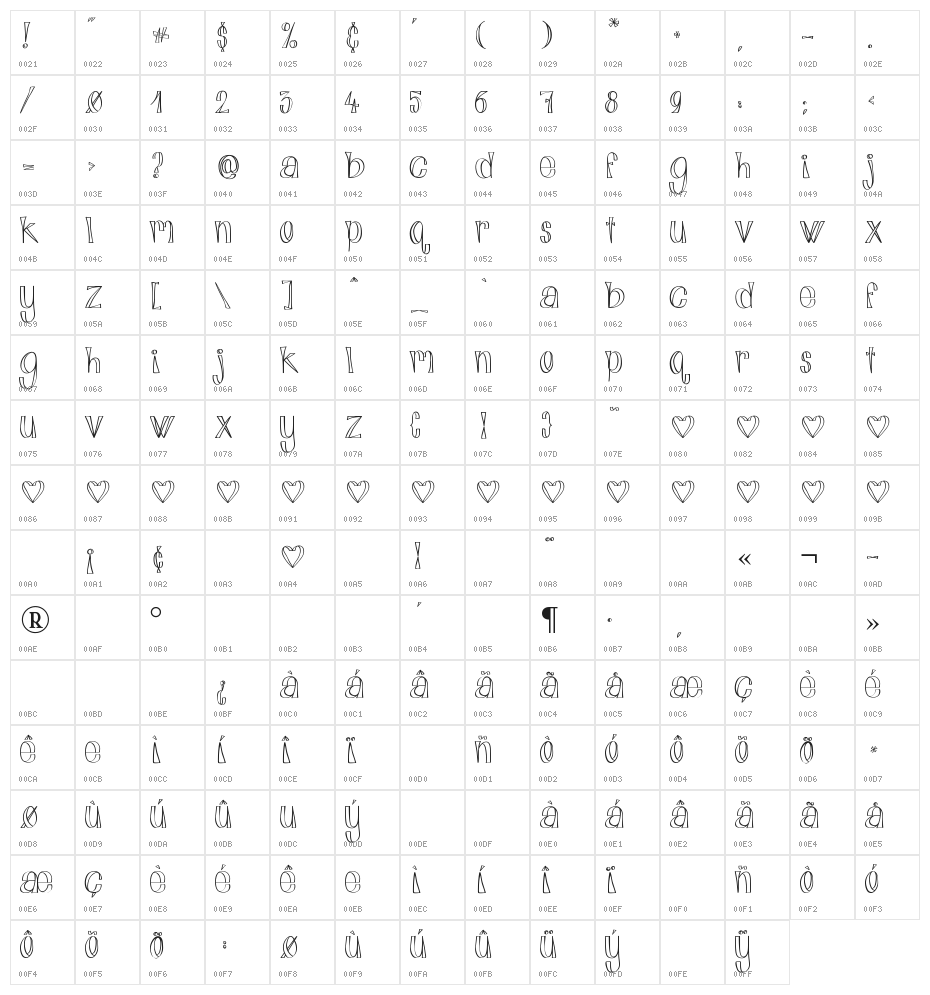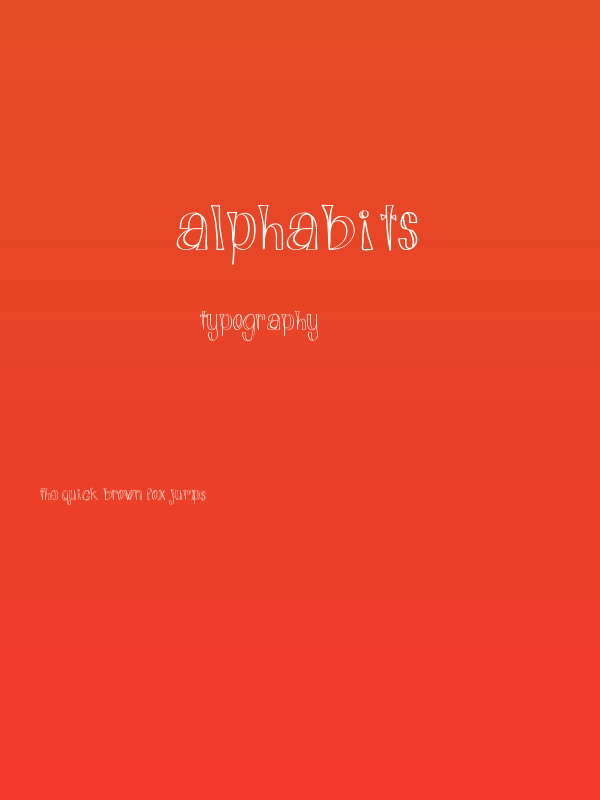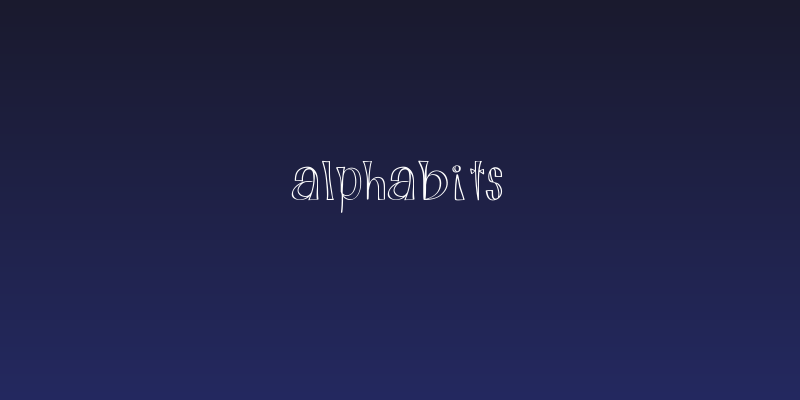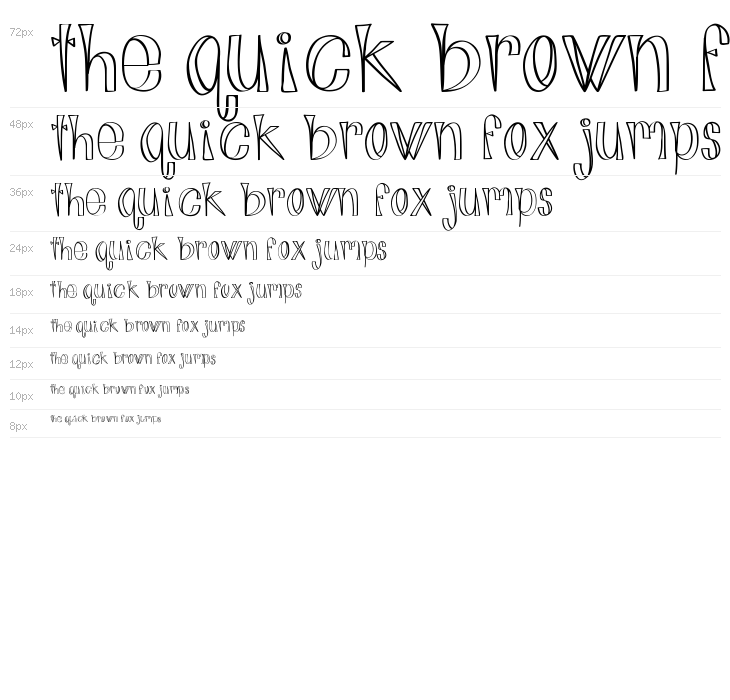
Alphabits Font
Alphabits Description
This font features a playful and whimsical design, characterized by its tall, narrow letters with a hand-drawn appearance. Each character is outlined, giving it a unique, sketch-like quality. The strokes are uneven, adding to the casual and informal feel. The uppercase and lowercase letters maintain a consistent style, with exaggerated curves and angles that create a sense of movement and energy. Numbers and special characters follow the same artistic approach, making the font suitable for creative and fun projects.
| Overall Style | Whimsical |
| Proposed Projects | Ideal for children's books, playful branding, greeting cards, and creative posters. |